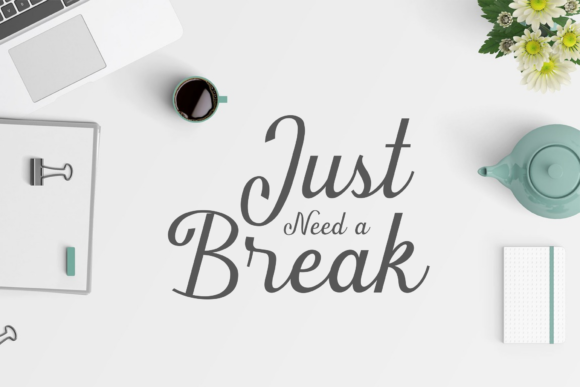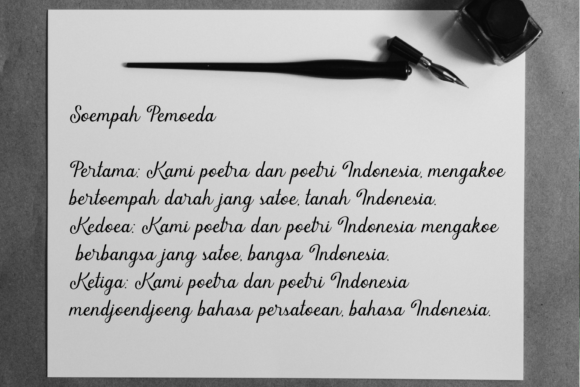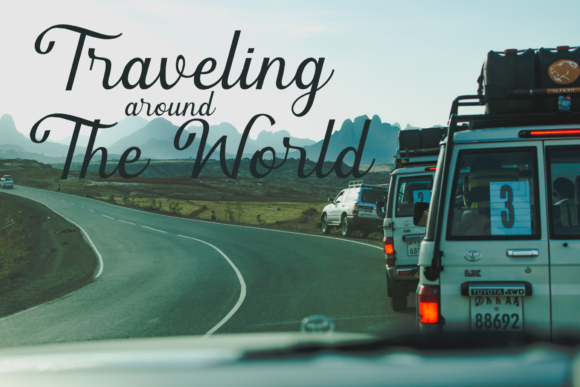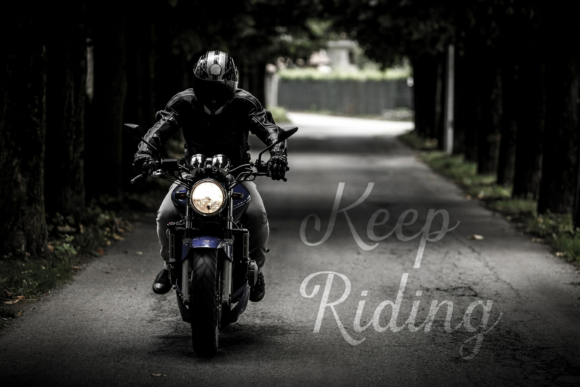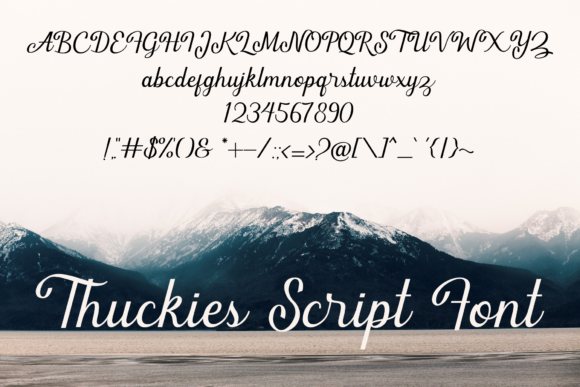
Thuckies Font
About Thuckies Font
The Thuckies is a beautiful handwritten font. It has an elegant look and a great readability.
It can be used for weddings, logos, greeting cards, branding, print ads, quotes, signage, magazines, and more!